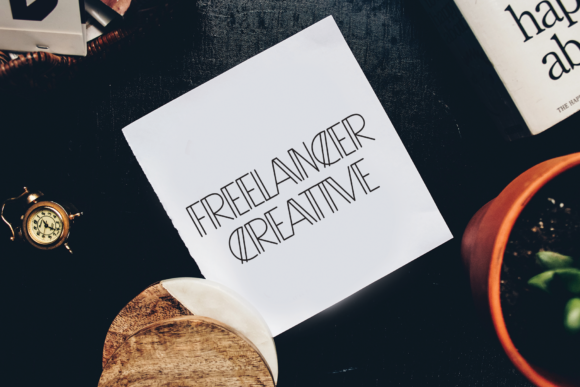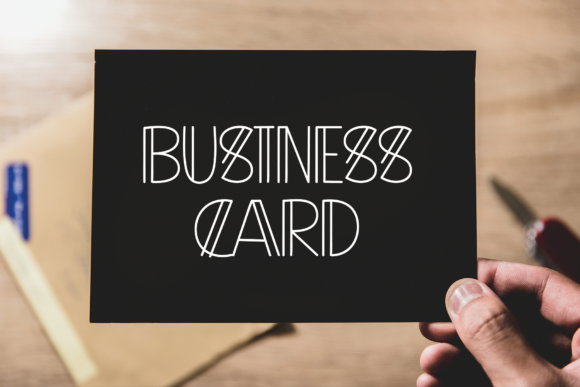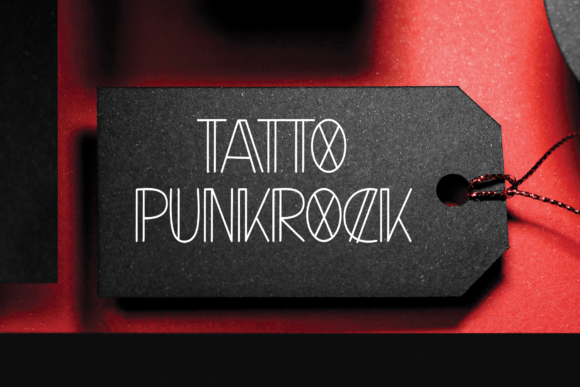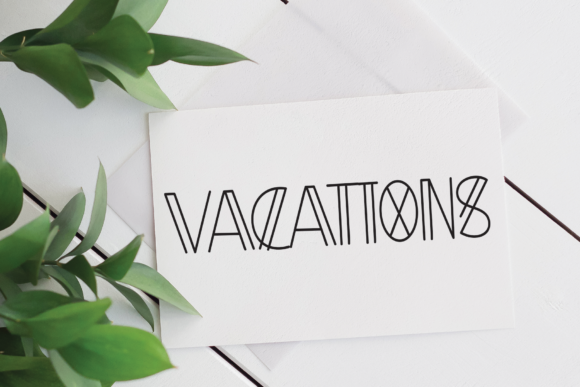
Introduction to Designer Font Font
Fonts play a crucial role in design, and the Designer Font font is a typeface that brings both character and versatility to any project. Whether you’re working on a branding project, a website, or a print design, the Designer Font font offers a unique style that can elevate your work.
This is a modern and stylish display font.
It features beautiful lines in each letter This font is PUA coded, which means you can access all the glyphs and sweeps easily.
Key Features of Designer Font Font
Why Choose Designer Font Font?
The Designer Font font is more than just a typeface – it’s a design tool that helps you communicate your message with style and clarity. Its unique character set and versatile design make it suitable for a wide range of applications, from elegant invitations to bold headlines.
With its carefully crafted letterforms and balanced proportions, the Designer Font font ensures readability and visual appeal across all mediums.
What makes Designer Font font special?
The Designer Font font stands out with its unique design, exceptional readability, and versatility across various design applications.